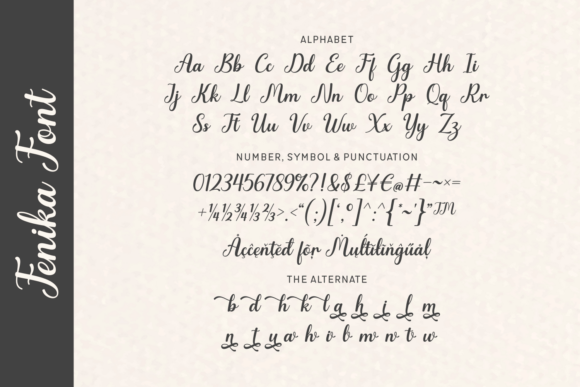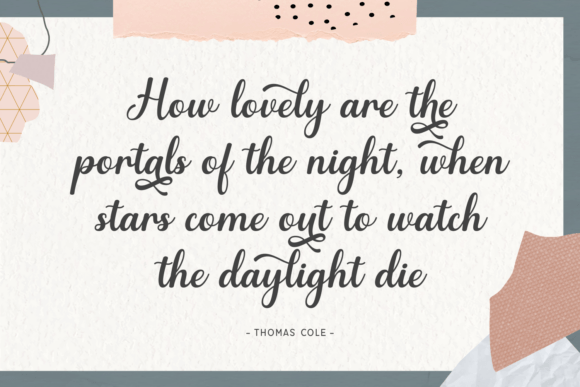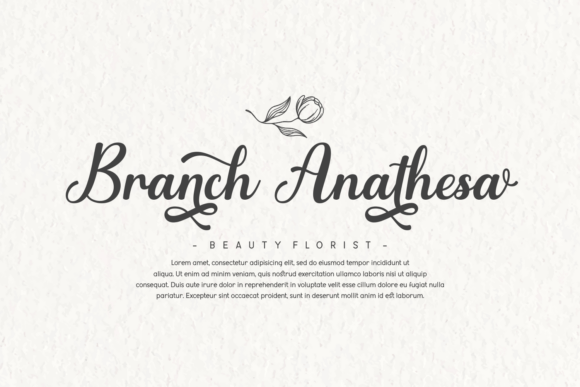
Fenika Font: Elevate Your Designs with Elegance and Sophistication
In the world of typography, fonts play a crucial role in conveying the tone and personality of a design. For designers and crafters seeking a modern script font that exudes sophistication and charm, Fenika Font is an exceptional choice. With its bold curves and unique swashes, Fenika brings an elegant yet approachable touch to any project, making it perfect for a wide range of applications.
What Makes Fenika Font Stand Out?
Fenika Font is a stunning modern script font that boasts bold curves and distinctive swashes, setting it apart from other fonts in its category. Its unique design elements make it an excellent choice for designers looking to add a touch of sophistication and elegance to their work. Whether you’re creating logos, branding materials, wedding invitations, product packaging, or social media designs, Fenika Font is sure to make a lasting impression.
One of the key benefits of Fenika Font is its versatility. Its style is carefully crafted to be both elegant and approachable, making it suitable for a wide range of design projects. Whether you’re working on a formal or creative design, Fenika Font adapts seamlessly, allowing you to achieve your desired aesthetic with ease. This versatility makes Fenika an invaluable addition to any designer’s font collection.
Fenika Font’s adaptability and unique style make it an ideal choice for various design applications, including:
- Logos and Branding: Create memorable and impactful logos that reflect your brand’s personality with Fenika’s bold and elegant curves.
- Wedding Invitations: Add a touch of romance and sophistication to your wedding invitations, making them truly unforgettable.
- Product Packaging: Elevate your product packaging with Fenika’s unique swashes and bold curves, making your products stand out on store shelves.
- Social Media Designs: Enhance your social media presence with eye-catching designs that showcase Fenika’s elegance and charm.
Why Choose Fenika Font?
With so many fonts available, why choose Fenika Font for your design projects? Here are a few compelling reasons:
- Unique Design: Fenika’s distinctive swashes and bold curves set it apart from other modern script fonts, ensuring your designs stand out.
- Elegance and Approachability: Fenika strikes the perfect balance between elegance and approachability, making it suitable for both formal and creative designs.
- Versatility: Use Fenika Font across various design applications, from logos and branding to wedding invitations and social media designs.
Tips for Using Fenika Font Effectively
To get the most out of Fenika Font, consider the following tips:
- Experiment with Swashes: Fenika’s unique swashes can add a touch of elegance to your designs. Experiment with different swash combinations to find the perfect fit.
- Pair with Complementary Fonts: Pair Fenika Font with complementary fonts to create visually appealing and harmonious designs.
- Adjust Font Sizes: Play with font sizes to create visual hierarchy and emphasize key elements in your design.
Fenika Font is a stunning modern script font that offers a perfect blend of elegance, sophistication, and approachability. Its versatility and unique design elements make it an excellent choice for a wide range of design applications, from logos and branding to wedding invitations and social media designs. By incorporating Fenika Font into your design projects, you can elevate your work and make a lasting impression on your audience.